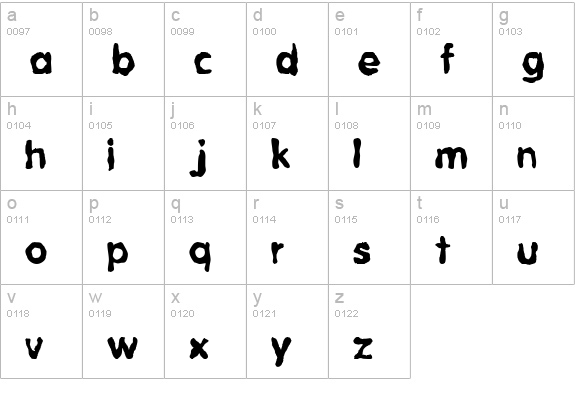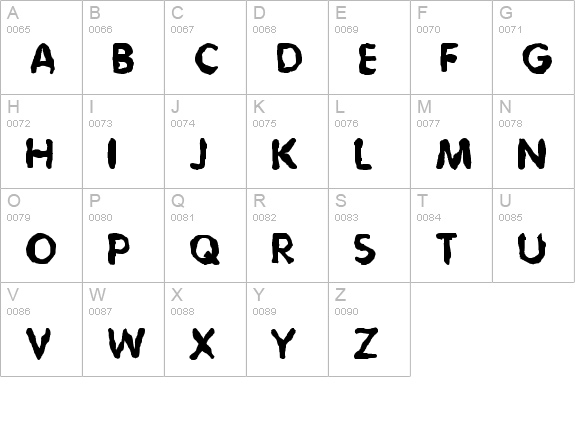
Melted Moments Font Details
Melted Moments font is a whimsical and charming typeface that exudes warmth and nostalgia. Its soft curves and playful letterforms give off a feeling of comfort and coziness, making it perfect for projects that require a touch of whimsy. The rounded edges and fluid design of Melted Moments font create a sense of movement and fluidity, adding a dynamic element to any text. What makes Melted Moments font even more appealing is that it is available for free download at FontsMarket.com. This means that you can easily access this delightful typeface without any cost, making it a valuable addition to your font collection. Whether you're working on a greeting card, poster, logo, or any other creative project, Melted Moments font will bring a sense of joy and playfulness to your design. Download it today and let your creativity flow with this charming and freely available font.